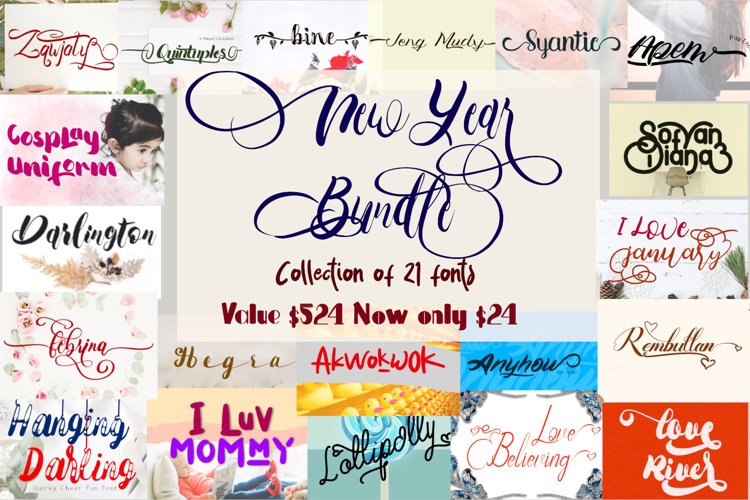
New year font bundle
Zawjaty
Hegra
Love_River
Rembullan
Love_Believing
I_Love_January
Lollipolly
Hanging_Darling
Anyhow
Febrina
Gilberta
Quintuples
I_Luv_Mommy
Cosplay_Uniform
Darlington
Akwokwok
bine
Jeng_mudy
DianaSofyan
Syantic
Apem
The New Year Font Bundle is a cutesy font pack that comes with 21 unique fonts. It is worth 524$, but you can get it now for only 24$!